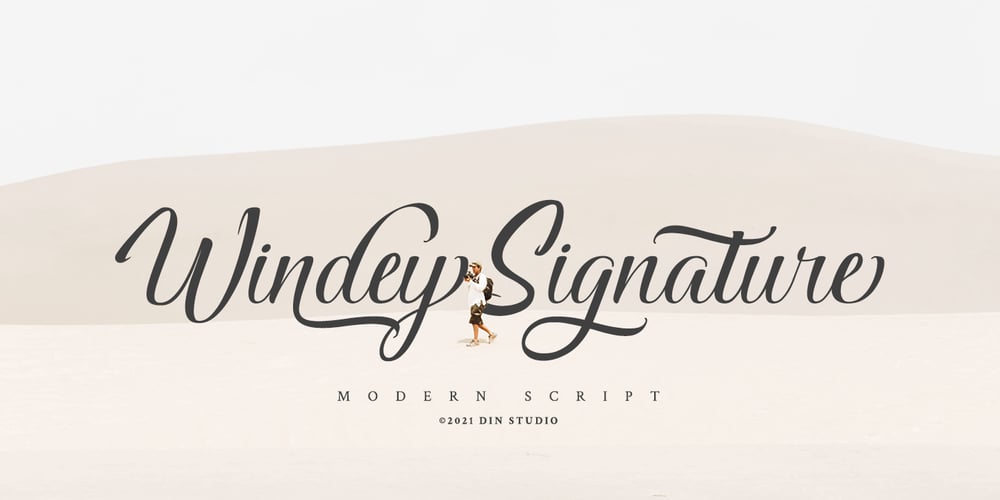
Windey Signature Font Family was designed by Donis Miftahudin and published by Din Studio. Windey Signature contains 1 styles and family package options. Your branding missing something that makes people amaze? Looking for an elegant font to attract your audiences or customers? What if we told you, you only need to change one element to engage and convert your clients? Introducing Windey Signature-A Modern Script Font Giving you a simple, yet the gorgeous solution to your branding. This font is another level script font. It encapsulates the essence of elegance and modernity. With its clean script-type design and curved indentations, this font will take your projects to the next level! Use it for headings, logos, business cards, printed quotes, invitations of all sorts, cards, packaging, and your website or social media branding. Windey Signature includes Multilingual Options to make your branding globally acceptable. Features: Ligatures Stylistic Sets Swashes Multilingual Support PUA Encoded Numerals and Punctuation Thank you for downloading premium fonts from Din Studio